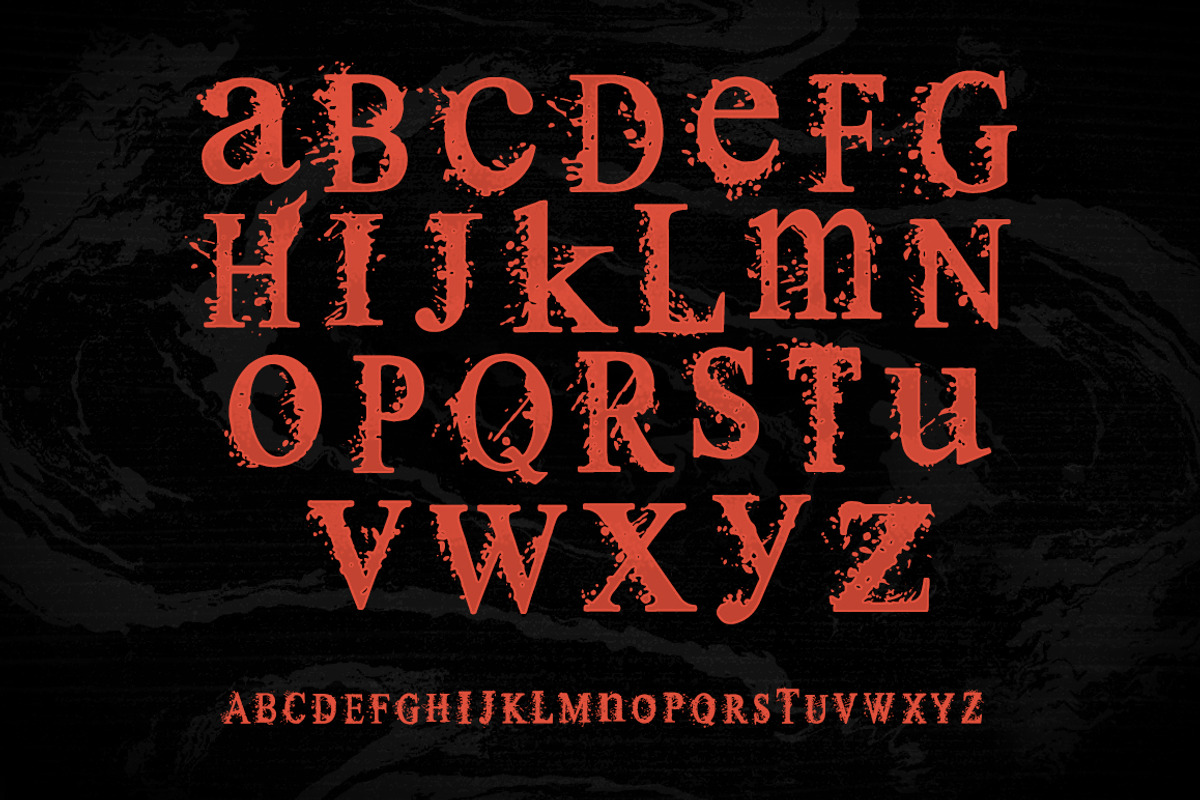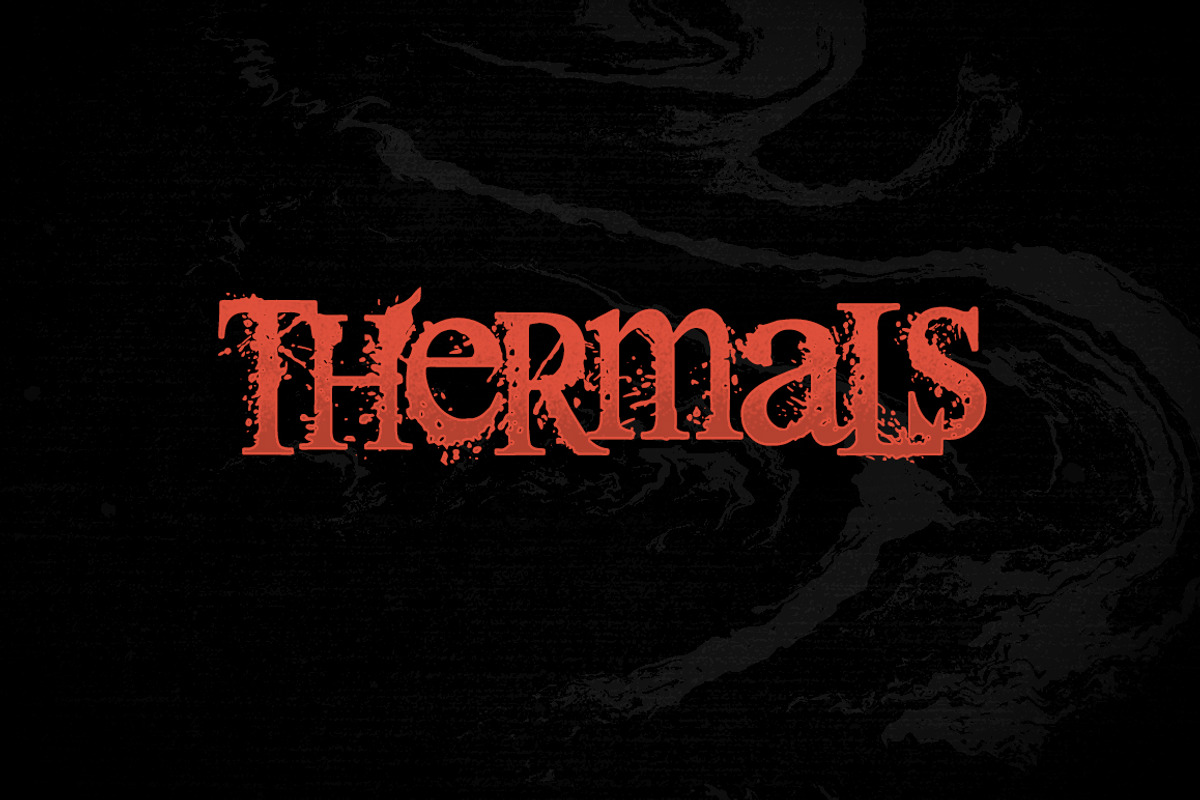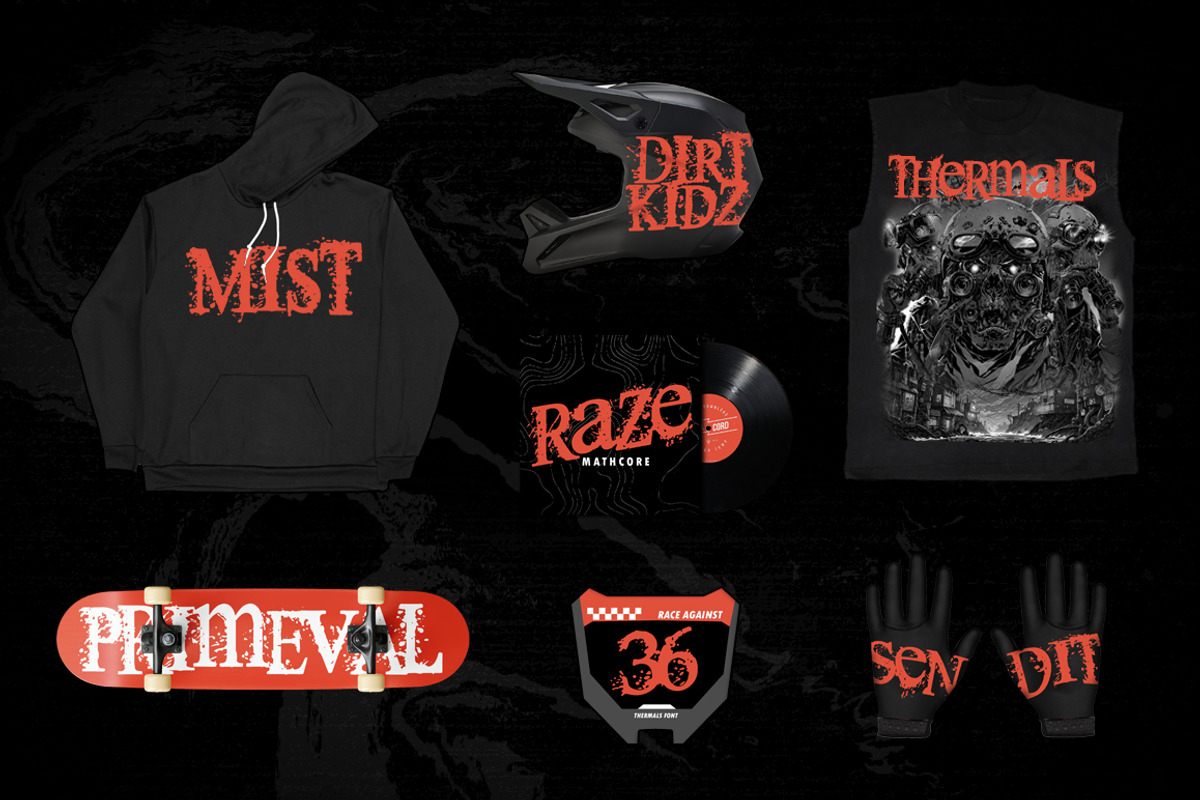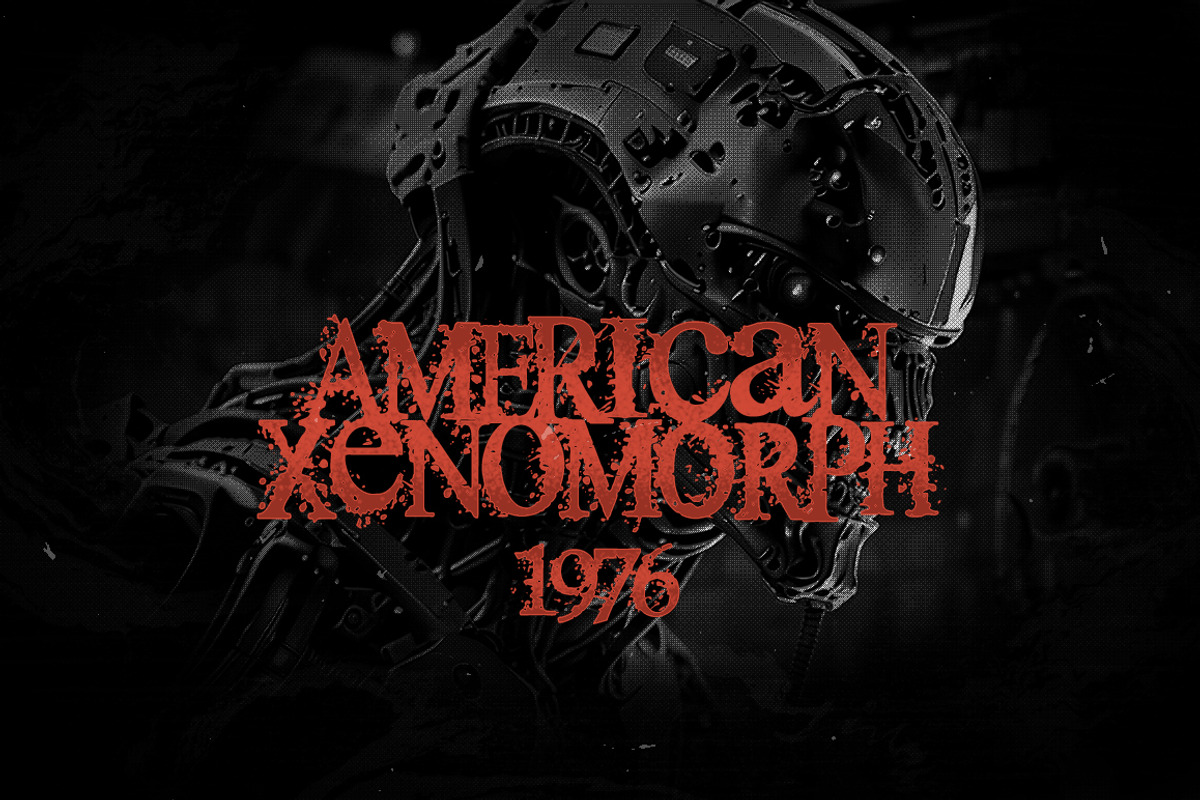
Thermals - Horror Font
Thermals is a standout horror serif designed for impactful branding. Its unique splatters and distressed appearance make it ideal for video thumbnails and horror film posters. Each glyph features intricate details that provoke thought, creating a chilling effect when uppercase and lowercase letters are combined. Elevate your designs with Thermals and capture a haunting atmosphere on your designs.